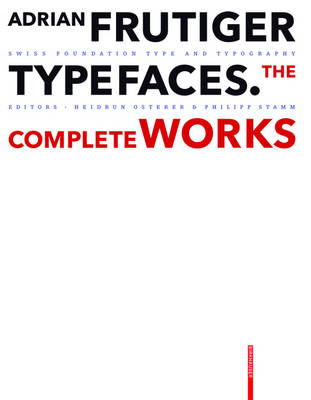
The creation of type in the latter half of the 20th century was considerably influenced by the Swiss type designer Adrian Frutiger. His typefaces are amongst the most successful of contemporary classics.
Adrian Frutiger - Typefaces. The Complete Works is based on interviews and conversations with the designer and on comprehensive research by the editors. Its depth and range make it an indispensable reference work. Completed in the year of Adrian Frutiger's 80th birthday, it represents, as is his wish, his legacy to further generations of type designers and typographers.
Introduction, School days and education, Fonts: Président, Phoebus, Element-Grotesk, Delta, Federduktus, Ondine, Méridien.- Lumitype-Schriften, Univers, Egyptienne F, Opéra, Apollo, OCR-B, Serifa, Concorde, New Devanagari, Iridium, Frutiger.- Glypha, Icone, Breughel, Versailles, LT Centennial, Avenir, Westside, Herculanum, LT Didot, Vectora, Shisheido, Pompeijana.- Rusticana, Neon, Frutiger Stones/Symbols, Capitalis/Symbolica, Nami/Tectum etc. Technical Inversions: Handsatz Blei.- Fotosatz Photon, Einzelbuchstabenguss, Zeilenguss Sofratype, Tech. OCR, Schreibsatz IBM, Letraset, Tech. CRT, Laser.- Fonts, Postscript, etc. Chronology, Bibliography.